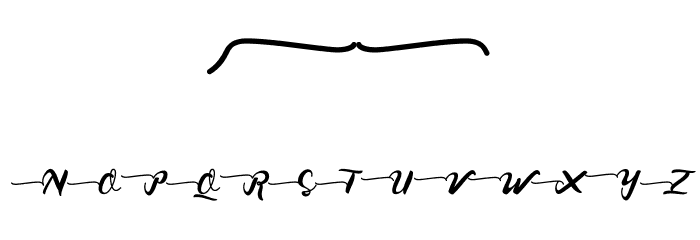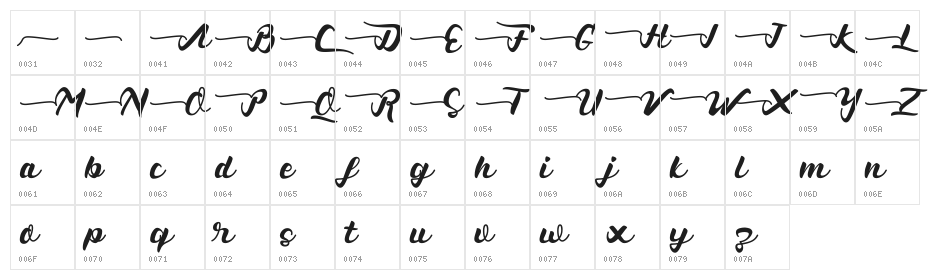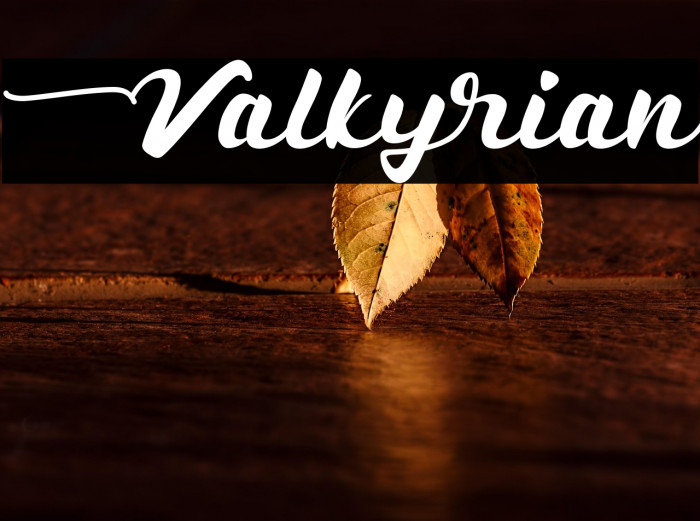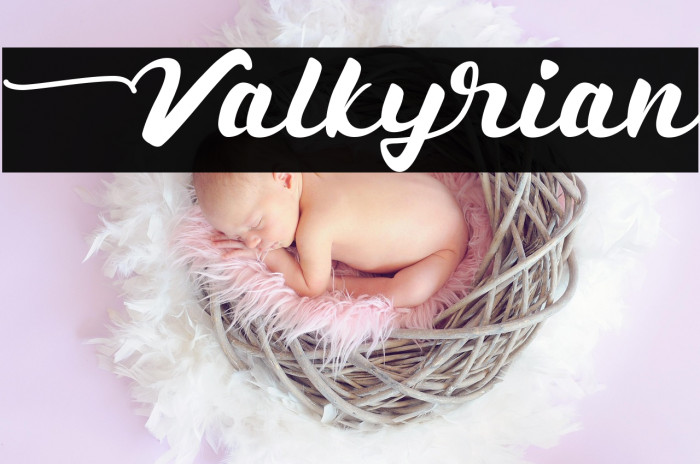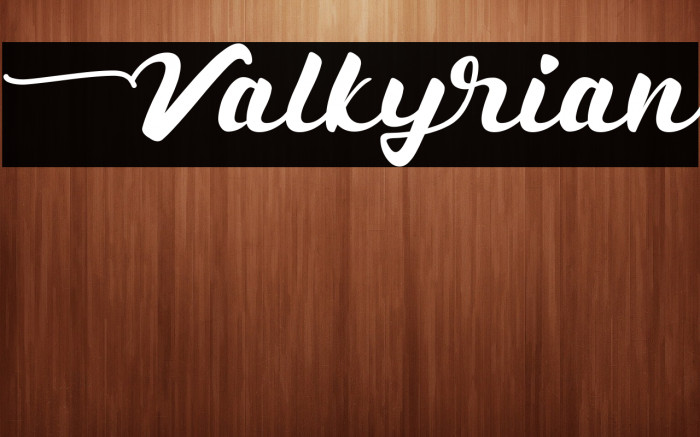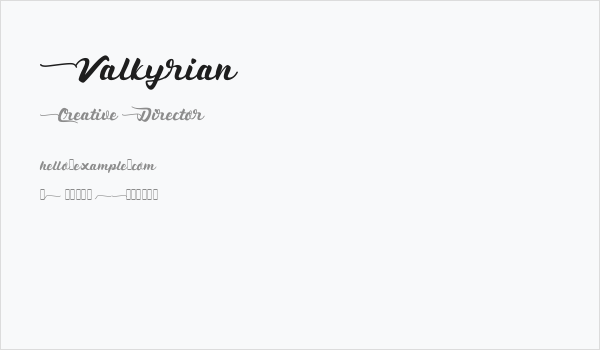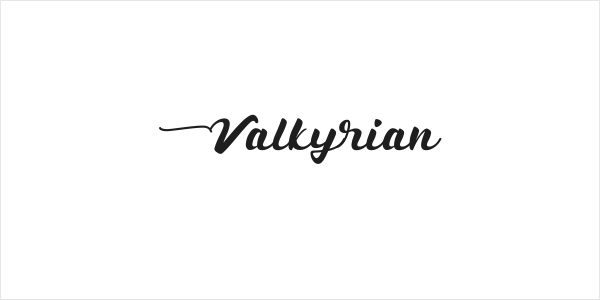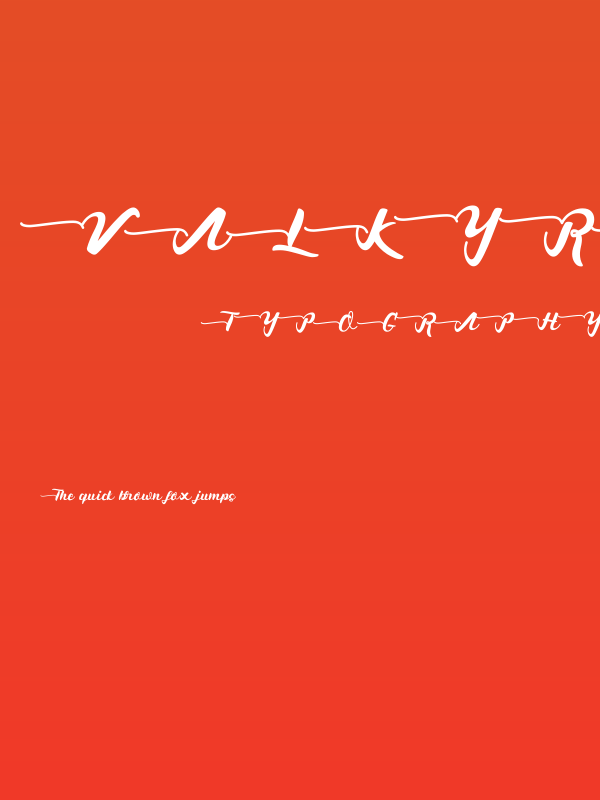
Valkyrian Font
Valkyrian Description
This font features a flowing, cursive style with elegant, interconnected letters that evoke a sense of sophistication and grace. The uppercase letters are slender and elongated, with delicate loops and flourishes that add a touch of whimsy. In contrast, the lowercase letters are bold and rounded, providing a striking visual balance. The overall design is reminiscent of classic calligraphy, yet it maintains a modern flair with its smooth curves and seamless connections. This font is perfect for projects that require a personal, handwritten touch, such as invitations, greeting cards, or branding materials.
| Proposed Projects | Ideal for wedding invitations, greeting cards, personal branding, and elegant packaging designs. |